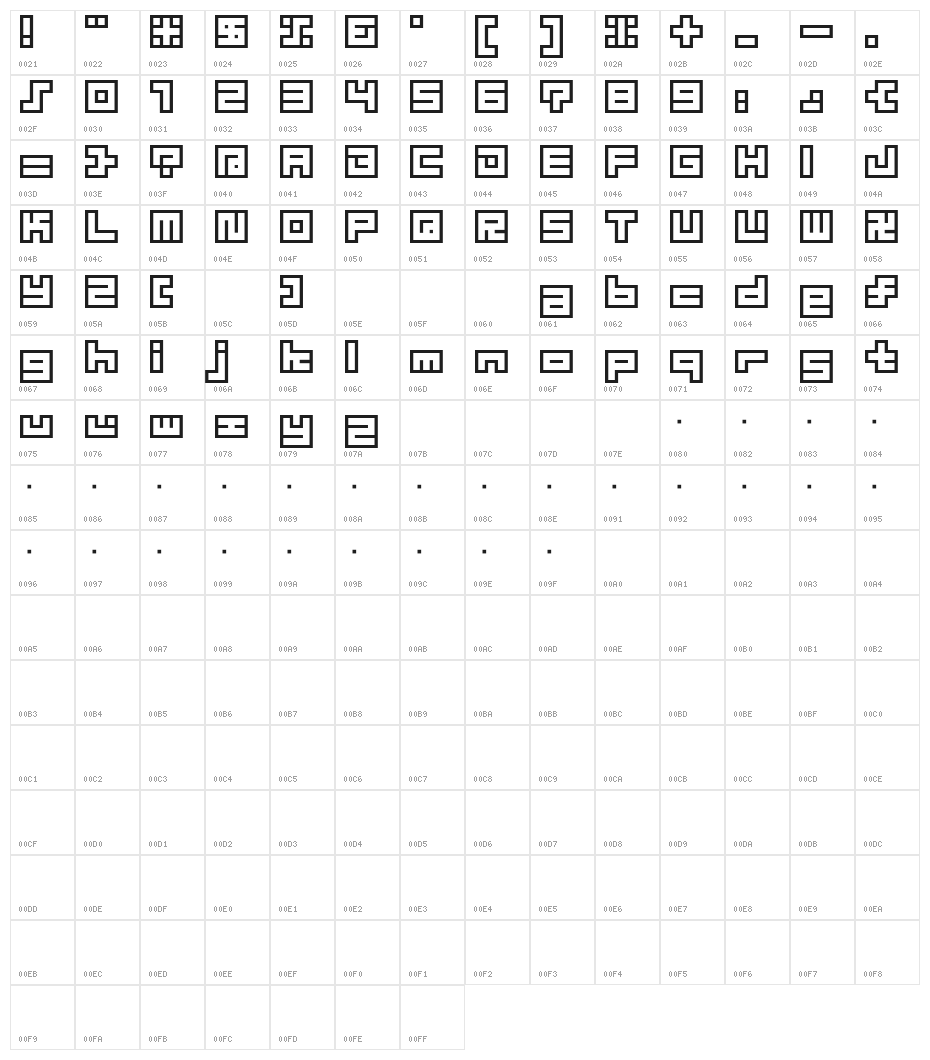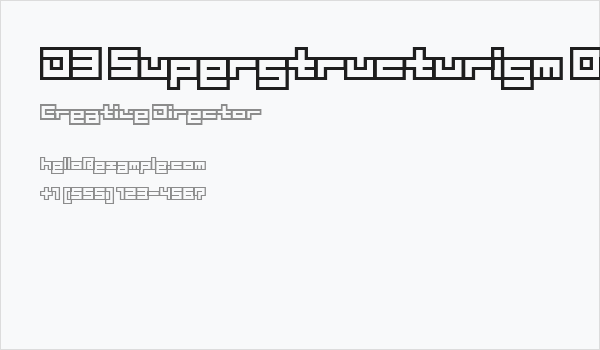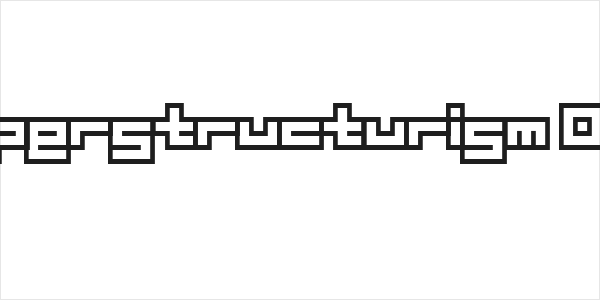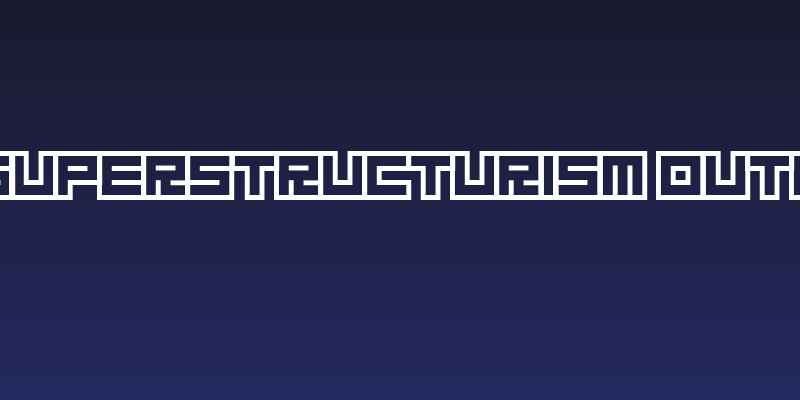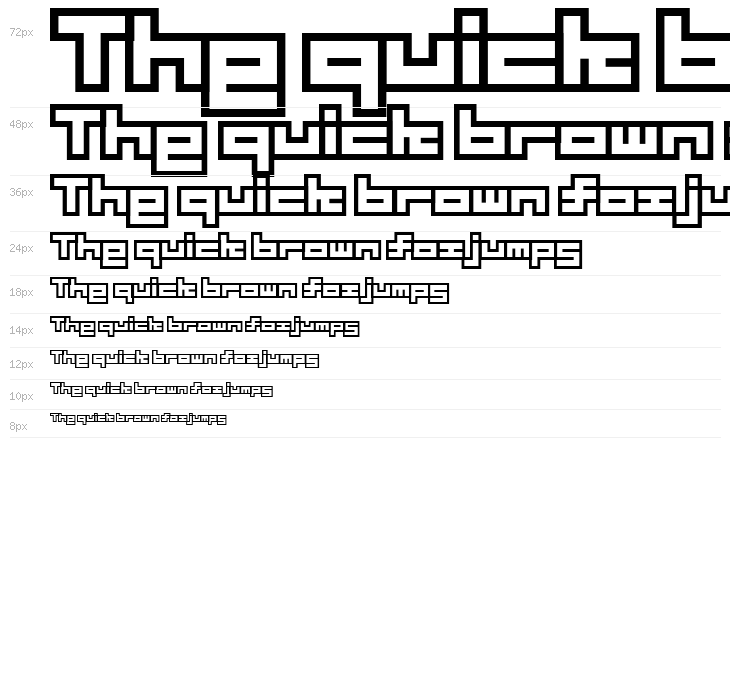
D3 Superstructurism Outline Font
D3 Superstructurism Outline Description
This font features a bold, geometric design with a distinct outline style. Each character is constructed with a uniform thickness, creating a structured and futuristic appearance. The angular shapes and sharp corners give it a digital, almost pixelated look, reminiscent of early computer graphics or architectural blueprints. The uppercase and lowercase letters maintain a consistent height, contributing to its monospaced feel. Numbers and special characters are designed with the same attention to geometric precision, ensuring a cohesive visual experience across all glyphs. This font's unique style makes it stand out, ideal for projects that require a modern and tech-inspired aesthetic.
| Proposed Projects | Ideal for tech branding, video game titles, futuristic posters, and digital art projects. |